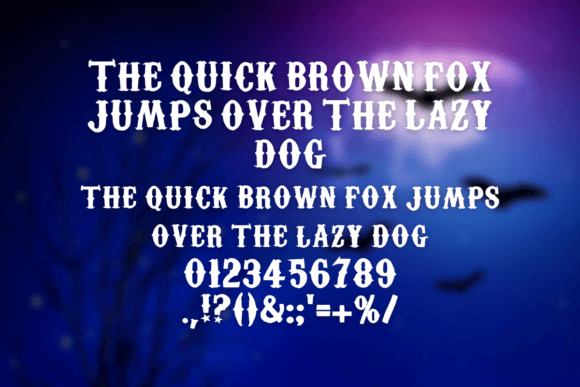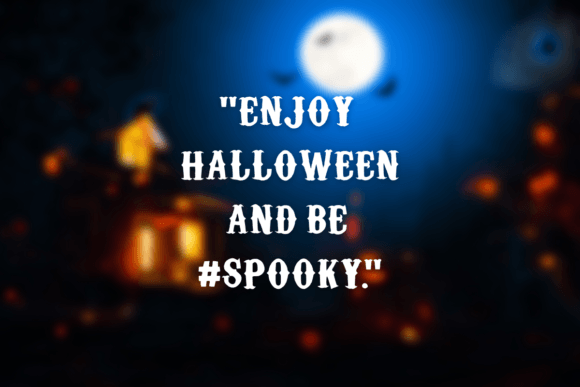
Introduction to Elegant Halloween Font
As a designer, there’s nothing quite like the rush of excitement you feel when you stumble upon the perfect font for your next creative project. For me, that moment came when I discovered the Elegant Halloween Font – a spooky, mysterious, and elegant typeface that perfectly captures the essence of Halloween.
Whether you’re working on a horror-themed design, a spooky website, or a Halloween-themed social media post, the Elegant Halloween Font is the perfect addition to give your project that extra oomph. And the best part? This high-quality font is available for free download, making it an invaluable resource for designers on a budget.
With its transparent background and intricate details, the Elegant Halloween Font is a must-have for any designer looking to add a touch of sophistication to their creative project. In this article, we’ll delve into the world of this enchanting font and explore why it’s a valuable addition to your design arsenal.
Key Features of Elegant Halloween Font
- Unique, spooky yet elegant design suitable for creative projects and Halloween-themed designs
- High-quality font with transparent background, ideal for overlaying on images or videos
- Designed with a high level of detail, perfect for designers looking for a premium design resource
- Supports a wide range of languages, making it a versatile font for various creative projects
- Perfect for use in digital design, including graphics, logos, and titles, as well as print design, such as posters and invitations
Honest Review: Elegant Halloween Font
I recently had the opportunity to work with the Elegant Halloween Font, and I must say it’s a fantastic addition to any design project. ✨ The high-quality font features intricate details and ornate designs that evoke the spooky spirit of Halloween.
One of the standout features of this font is its versatility. It’s perfect for a wide range of creative projects, from party invitations to social media graphics. The transparent background option allows for seamless integration with any design element, giving you complete control over the final look.
Here are some of the key features that make this font so great:
- High-quality design with intricate details
- Transparent background option for easy integration
- Perfect for creative projects, including party invitations and social media graphics
Of course, no font is perfect, and the Elegant Halloween Font has its limitations. ⚠️ The font is quite large in size, so it may not be suitable for all design projects. Additionally, some users may find the font a bit too elaborate for their taste.
Overall, I’m really impressed with the Elegant Halloween Font. It’s a great design resource for anyone looking to add a touch of Halloween magic to their creative project. I highly recommend giving it a try – it’s free to download, after all!
Tips for Getting the Most Out of Elegant Halloween Font
Use a transparent background for a spooky effect.
Combine with other design resources for a high-quality creative project.
Common Use Cases for Elegant Halloween Font
Invitations, posters, and social media graphics.